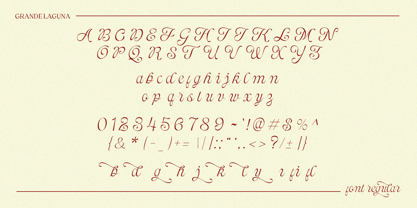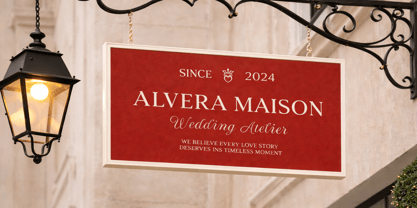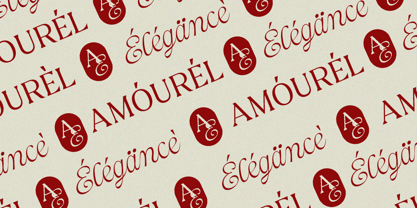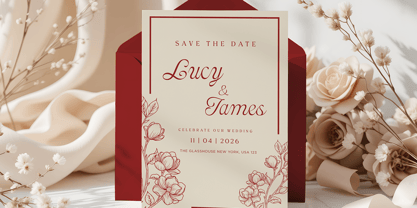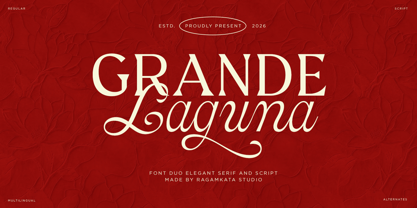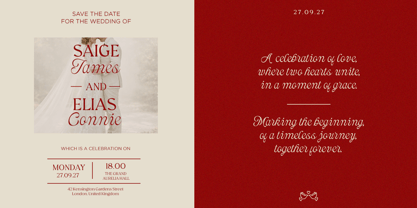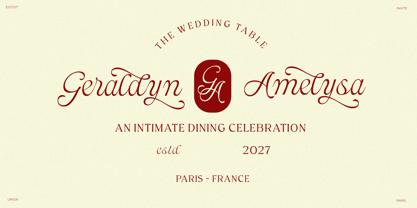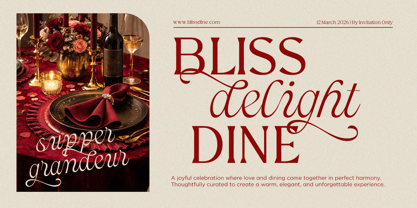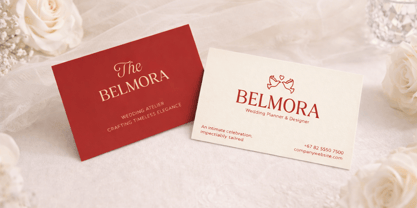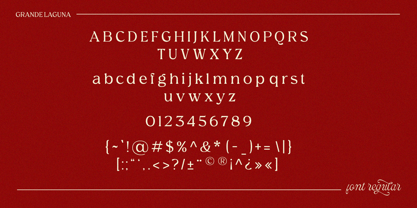
Grande Laguna Script
by RagamKata
The Grande Laguna Script Font Family was designed by Yogiswhara Dio Prakoso Riadi and published by RagamKata. Grande Laguna Script contains 2 styles and family package options. More about this family
Grande Laguna is an elegant font duo that seamlessly blends a refined serif with a graceful script. This design creates a harmonious balance between structure and fluidity, delivering a luxurious and timeless aesthetic that elevates any project. The serif offers a strong and sophisticated foundation, while the script introduces a charming and expressive movement. Crafted for versatility, Grande Laguna is ideal for branding, wedding invitations, editorial layouts, and high-end visual identities. The combination of clean serif forms and flowing script ligatures enables designers to create stunning typographic compositions effortlessly. Whether used together or separately, both styles complement each other beautifully. With multilingual support and a rich set of alternates, Grande Laguna provides flexibility for global and creative applications. Its elegant curves and refined details make it an exceptional choice for projects that require beauty, class, and a premium visual presence.
Designers: Yogiswhara Dio Prakoso Riadi
Foundry: RagamKata